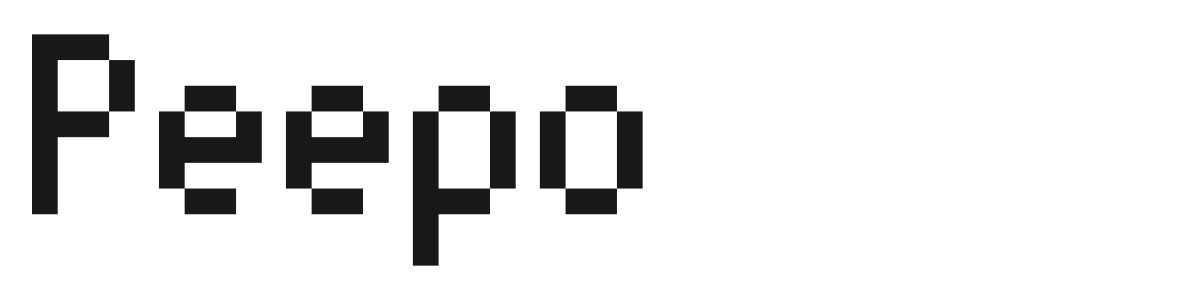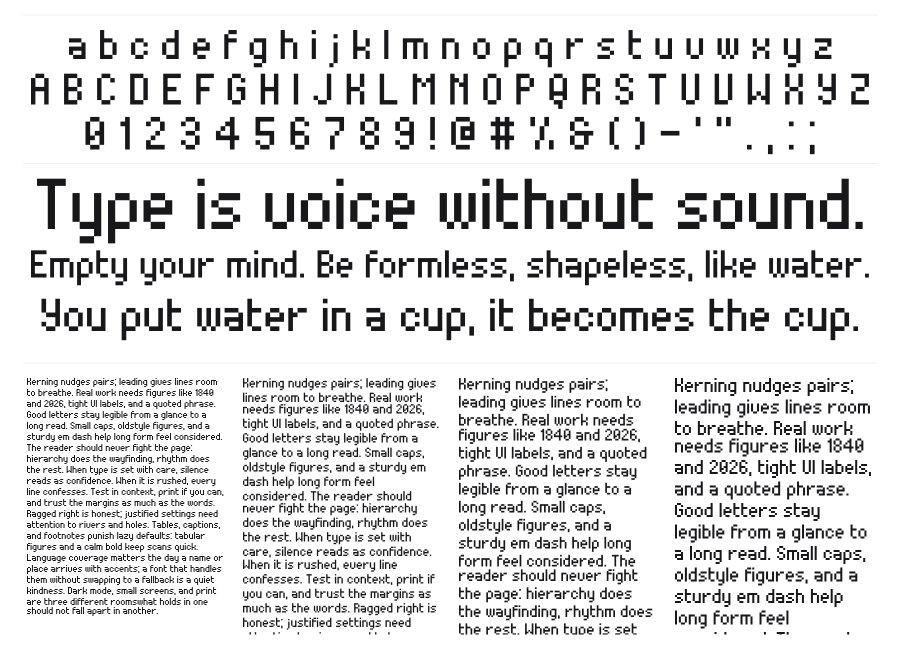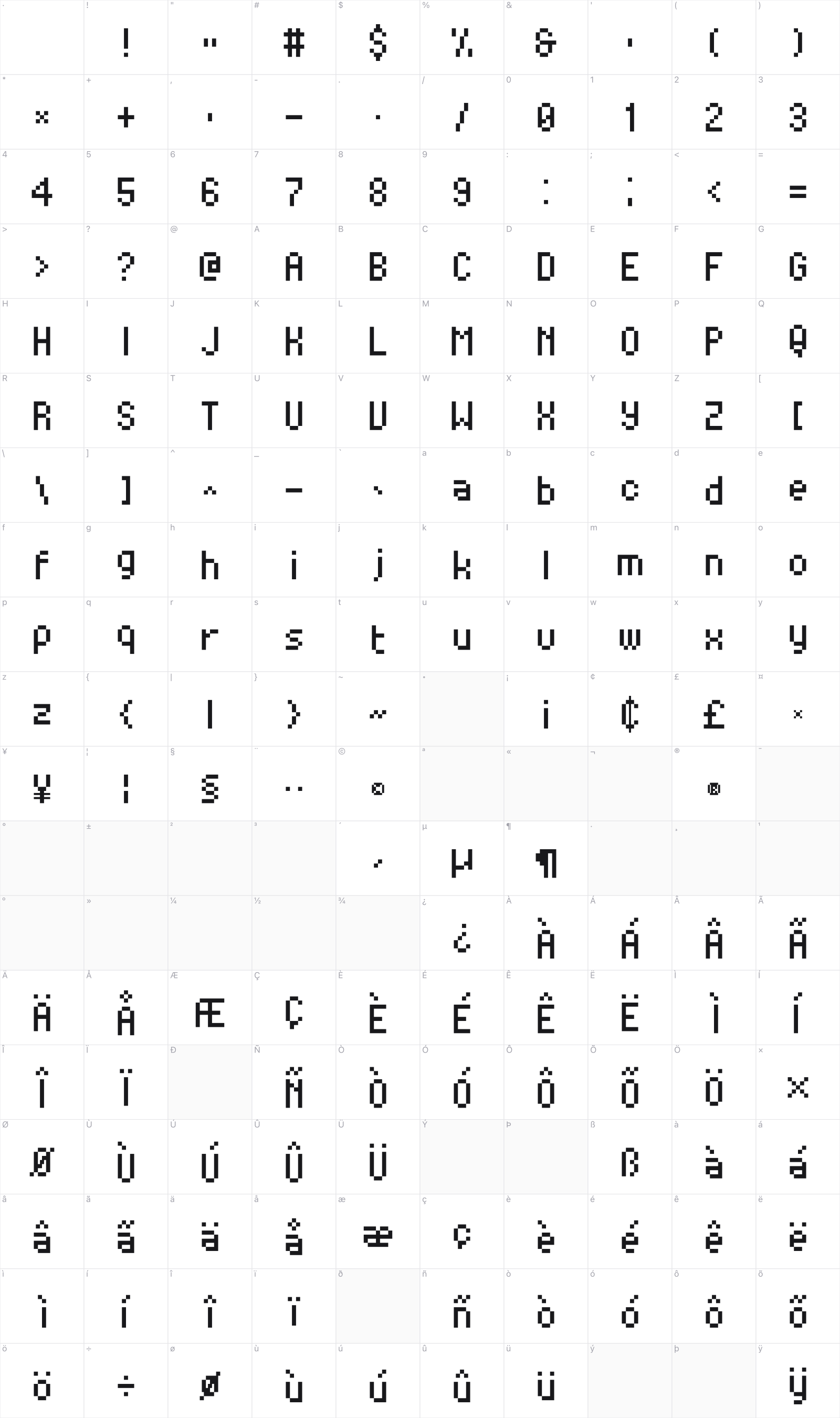
Peepo
Peepo is a bold bitmap pixel font built on a strict square-module grid, channeling the look of early arcade and home-computer screens. Every character is constructed from chunky right-angle blocks with zero stroke contrast, giving it an unmistakably 8-bit personality. It reads best at large sizes where the pixel structure becomes a visual feature rather than a limitation.